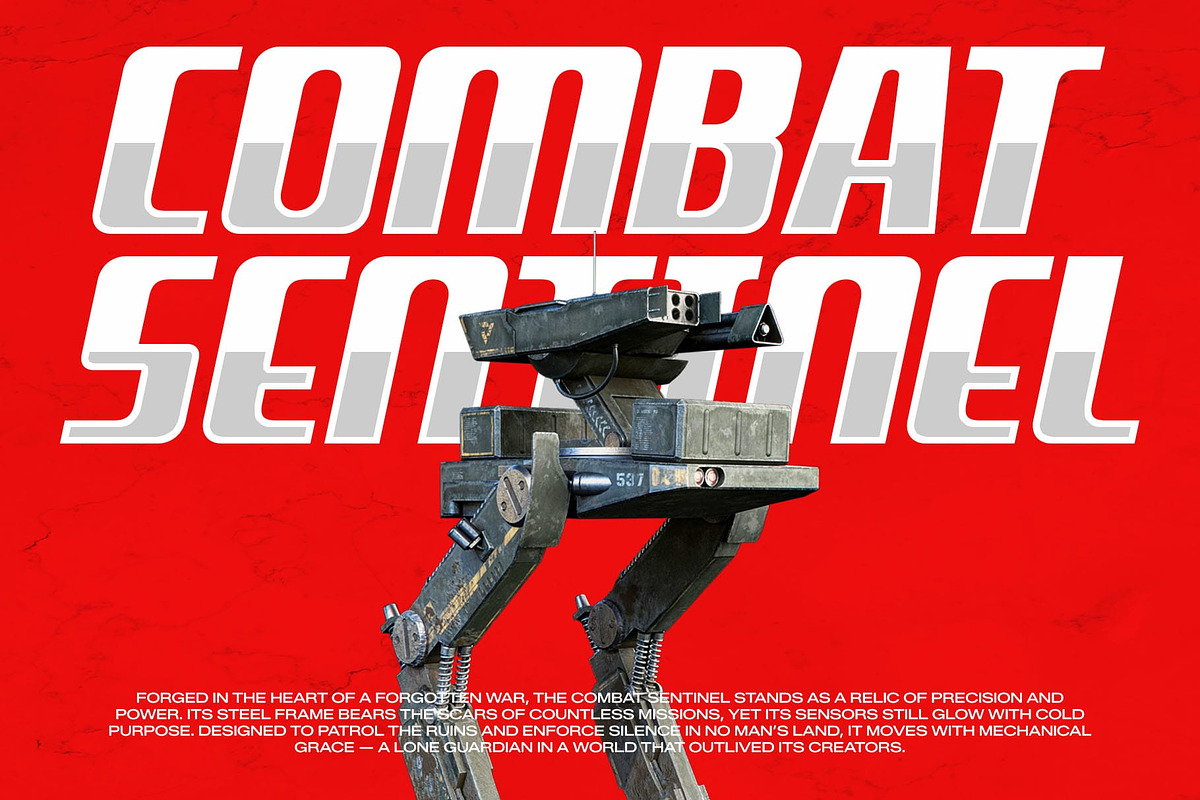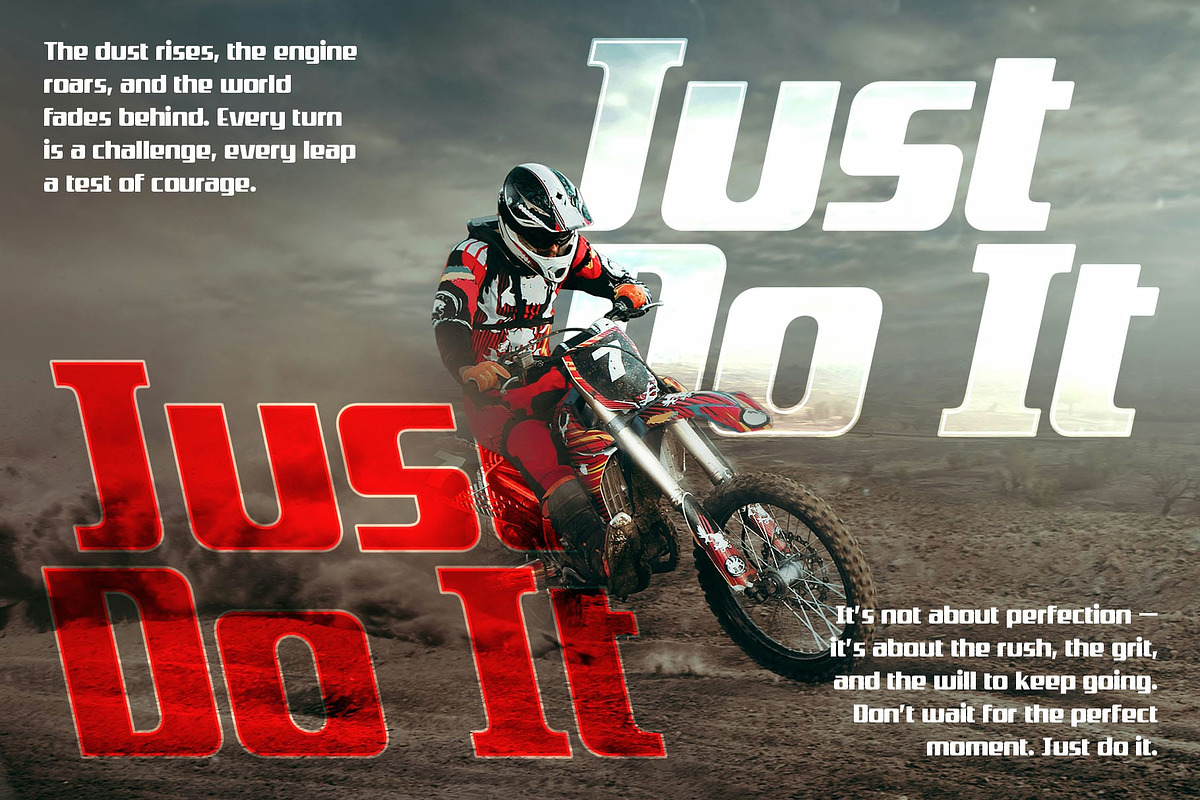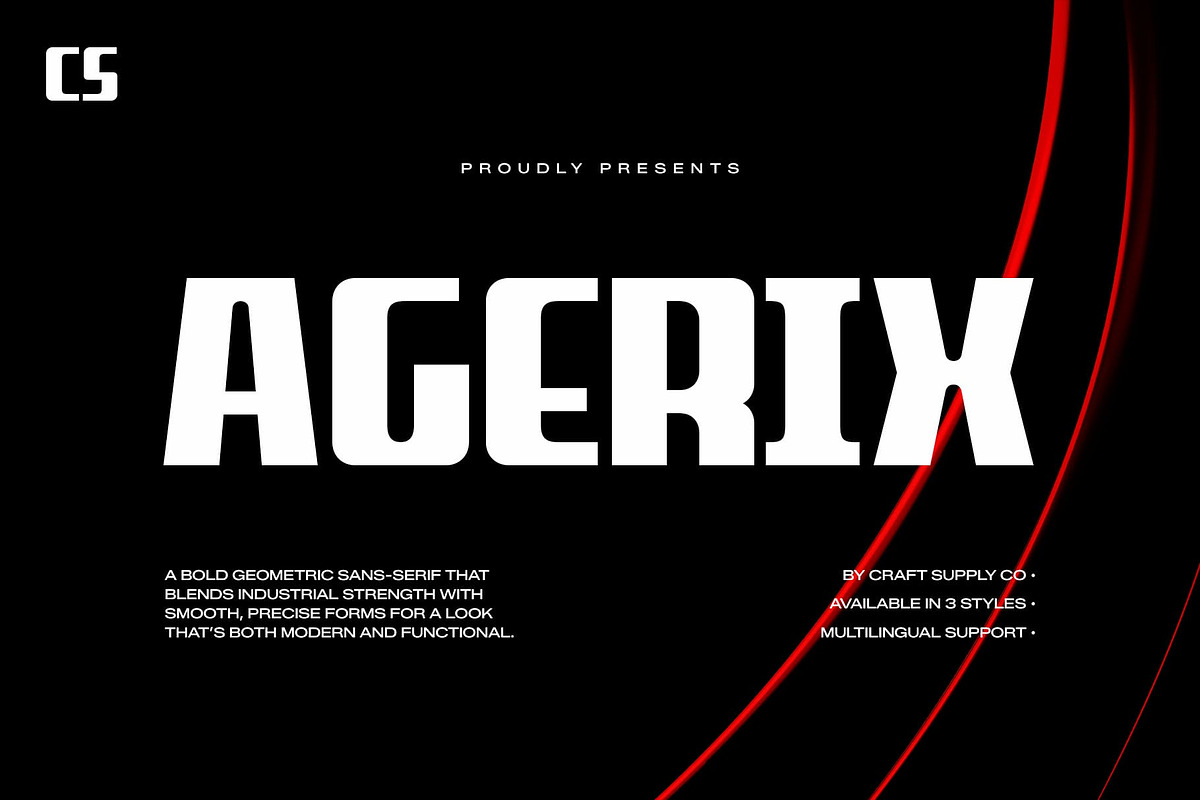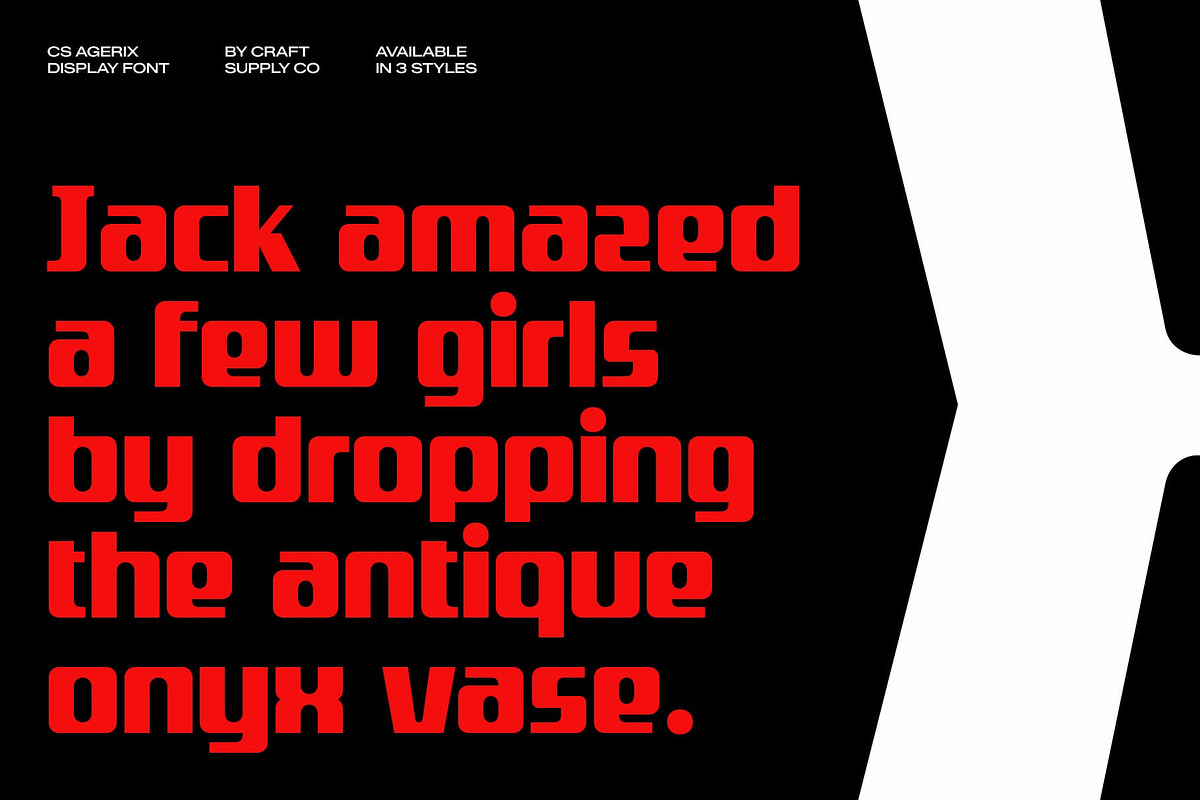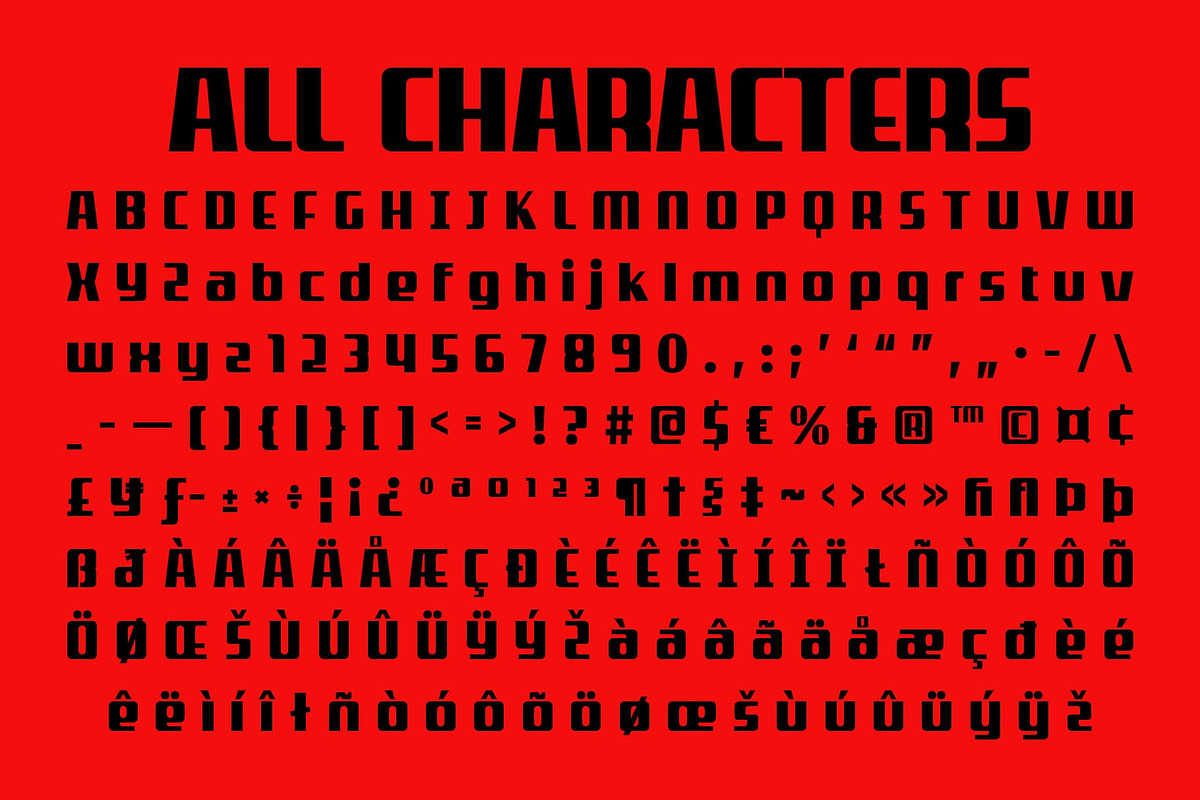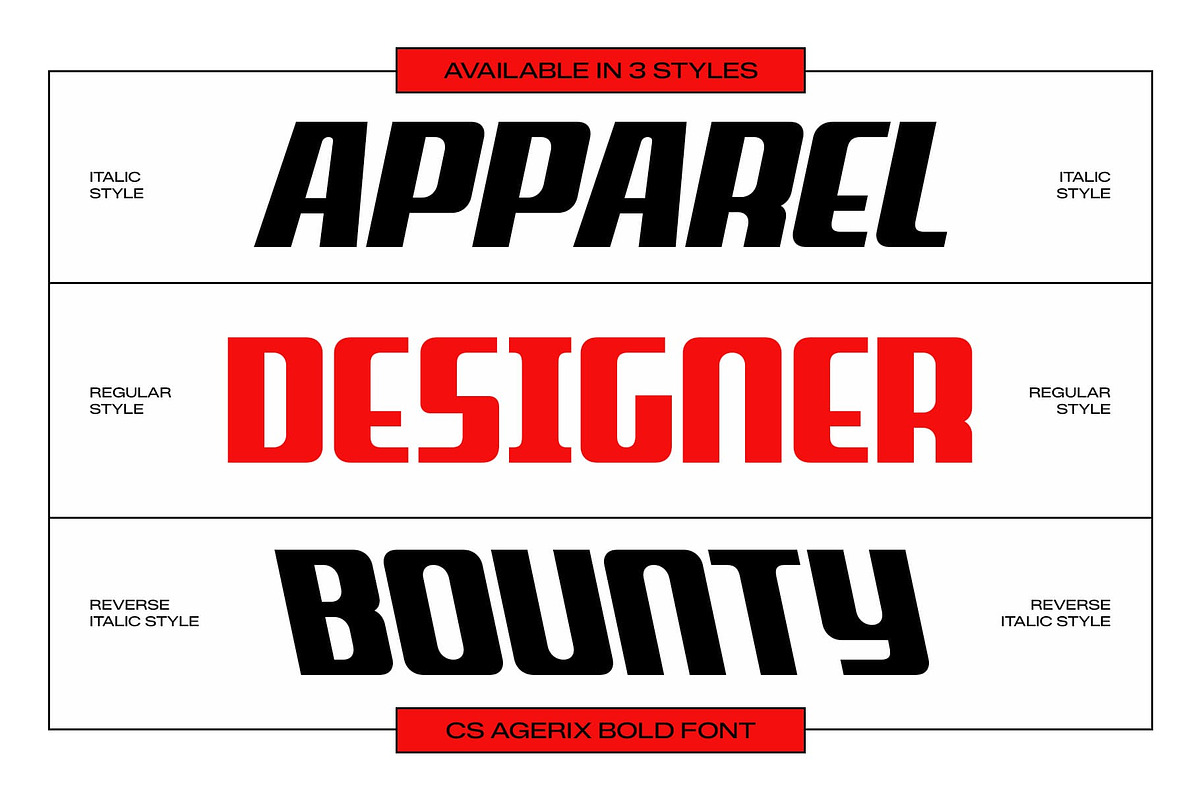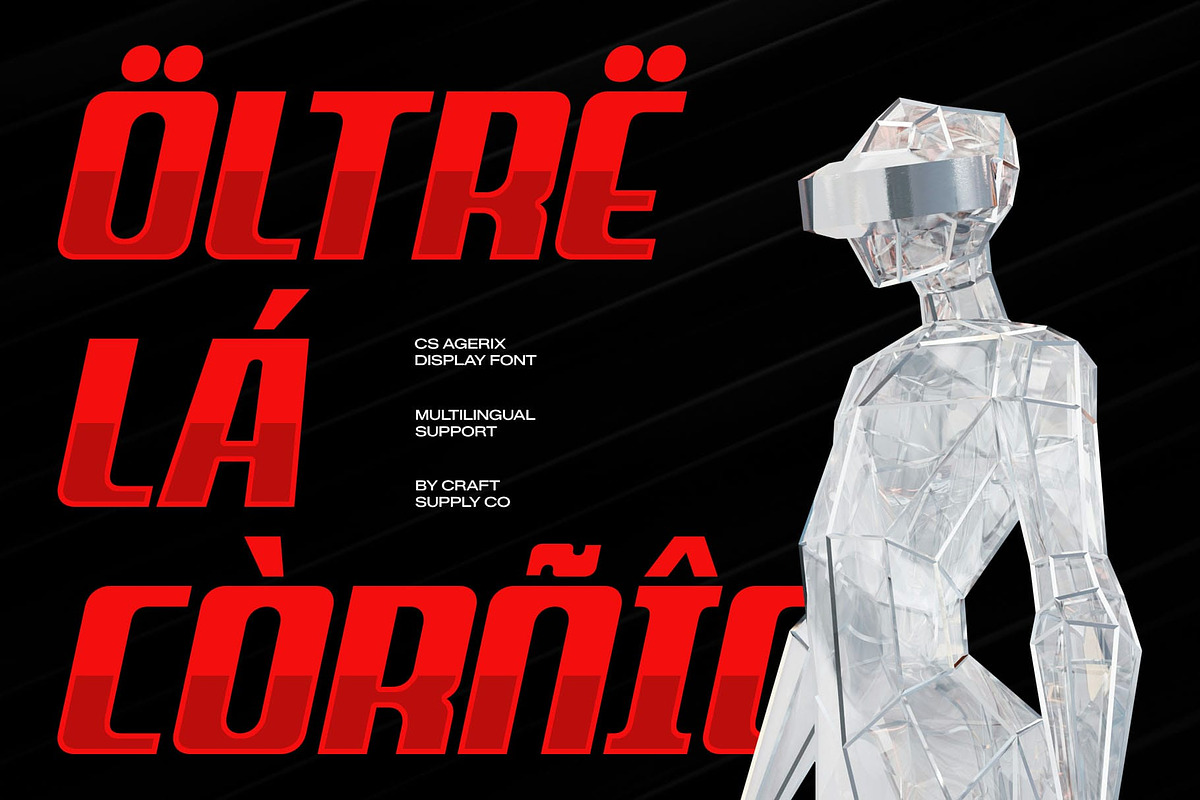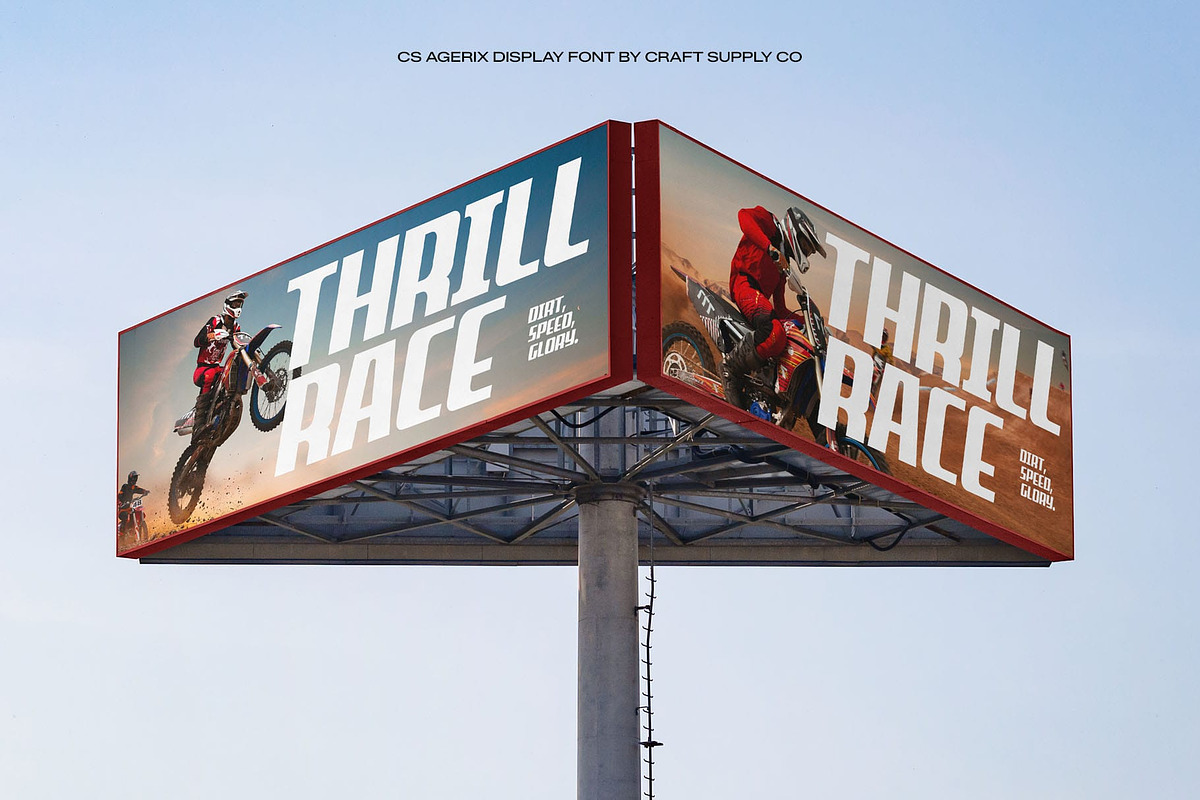
CS Agerix – Display Sans Serif
CS Agerix: Industrial Precision Meets Modern Design
Bold Geometric Sans Serif for Modern Functionality This is a bold geometric sans serif font that blends industrial strength with smooth, precise forms, creating a visual identity that is both modern and functional. Each character is designed with clarity and structure in mind, offering designers a typeface that communicates confidence, innovation, and technical excellence.
Strong Structure with Clean Geometry The foundation of this font lies in its geometric precision. Its clean lines, balanced proportions, and sharp edges deliver a sense of stability and order making it ideal for projects that demand structure and professionalism. This geometric clarity gives every word a distinct visual impact, ensuring your message is delivered with power and precision.
Industrial Aesthetic with Modern Appeal This font captures the essence of industrial design through its bold, confident letterforms. Despite its robust build, it maintains a refined sense of smoothness that adds a touch of modern sophistication. This balance between strength and sleekness makes it perfect for contemporary applications that merge technology, and function.
Versatile for Branding and Creative Projects From branding and logo design to techno layouts and editorial visuals, this font adapts seamlessly to diverse creative contexts. Its modern aesthetic and strong presence make it an excellent choice for designers who want to project innovation, reliability, and clarity. Whether used for posters, digital interfaces, or corporate identities.